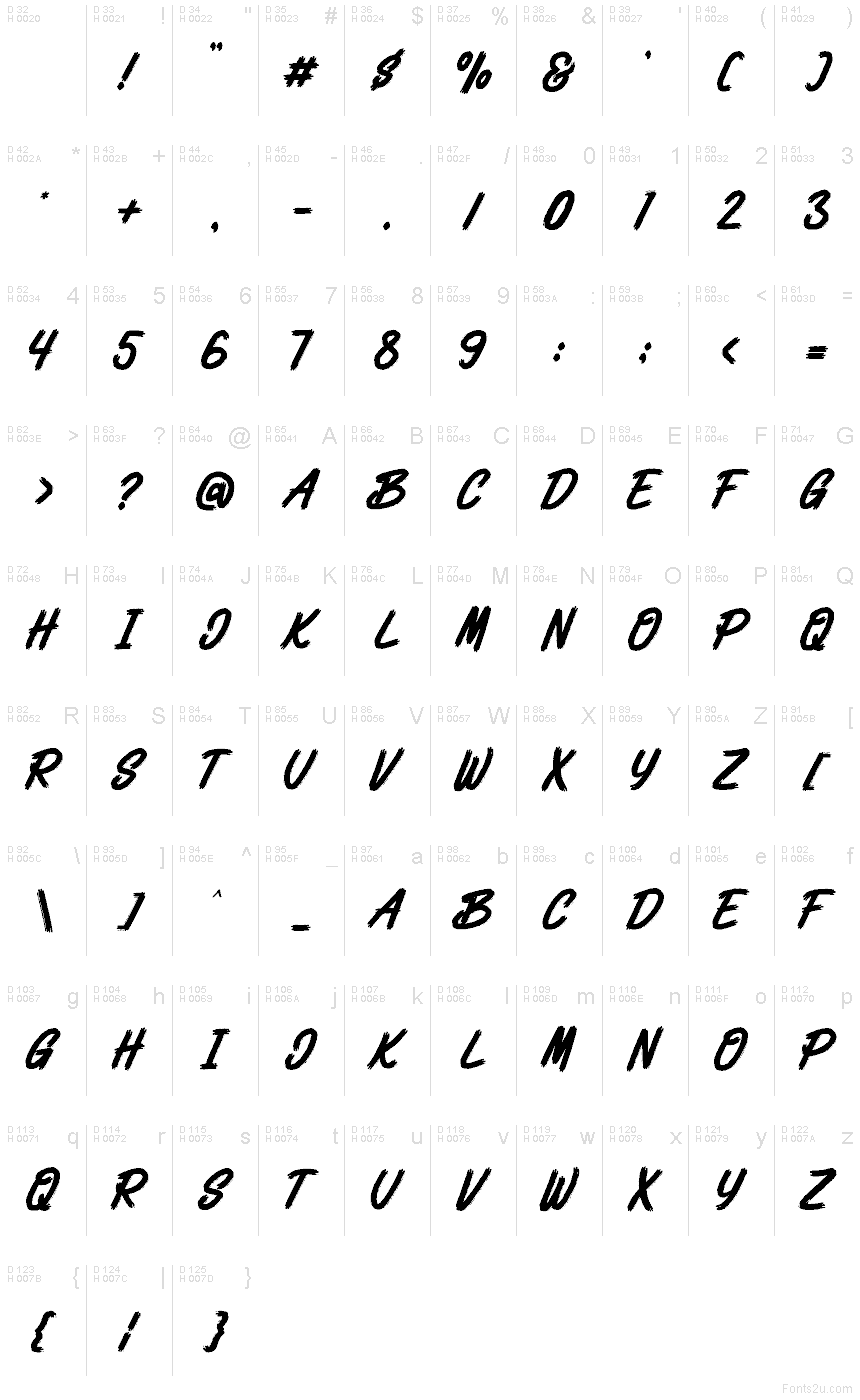
Mixan Nomen
Mixan Nomen font by Ermedia Studio is a free brush font that solves a common headache: bold, gritty energy without sacrificing legibility. Its dry-brush texture, ragged edges, and forward-leaning rhythm read fast at a glance, so your headline hits hard and stays clear. The strokes feel pulled and slightly splintered, like fresh paint dragged across rough paper—urgent, punchy, and unmistakable.
Using Mixan Nomen, you get high-impact titles that shine on sports posters, esports logos, streetwear branding, energy drink packaging, YouTube thumbnails, event flyers, and album covers. This free font loves big sizes with tight tracking, letting those bristled cuts lock together. Pair with a clean condensed sans for body copy to keep the chaos in check and the message sharp.